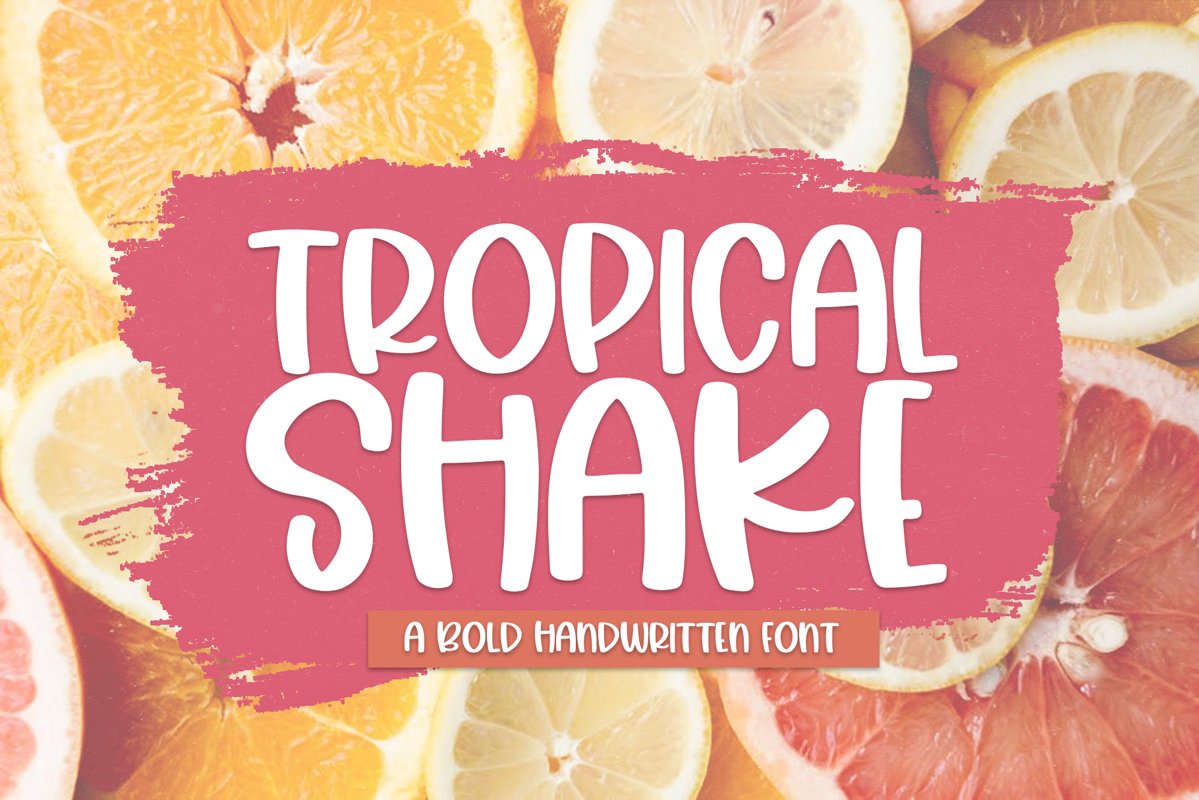
Tropical Shake is a fun handwritten font!
This font is perfect for quotes, shirt designs, websites, branding, children's designs, svg designs, blogs, logos, invitations and more!